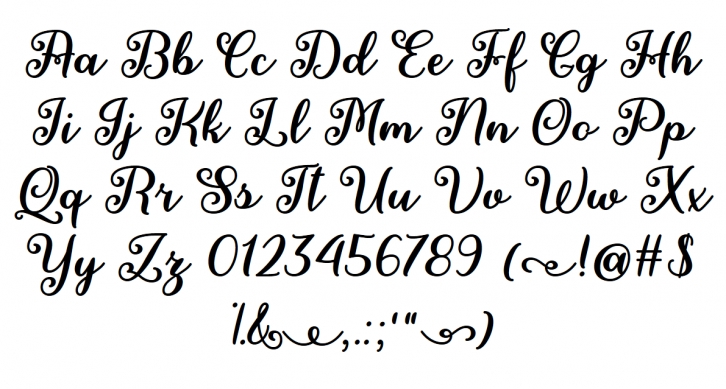
SPECIAL SYMBOLS
Type ~ (tilde) for the small loop
Type * (tilde) for the medium loop
Type | (vertical bar) for the big loop
Type {} (curly braces) for the bigger lowercase beginning and ending swashes
Type (greater than, lesser than) for the smaller lowercase beginning and ending swashes